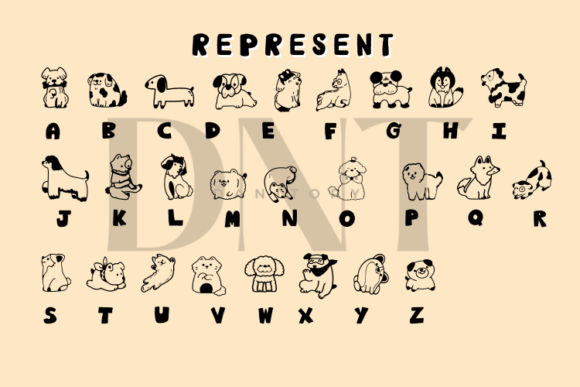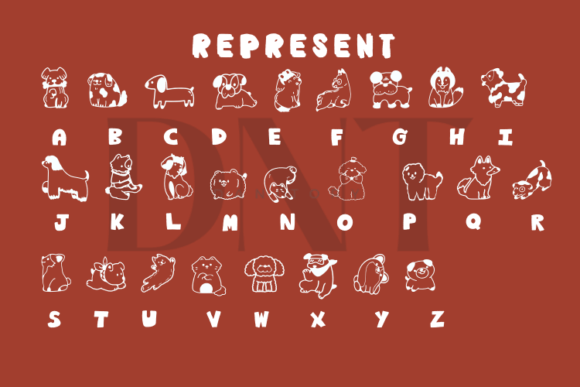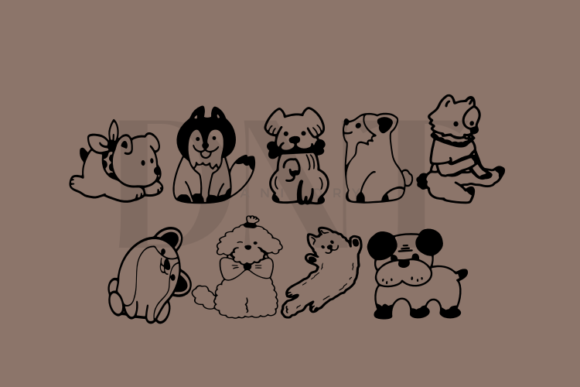
Cute Dogs Font: The Ultimate Companion for Pet Lovers and Designers
Are you a pet lover, designer, or crafter looking for a font that captures the essence of adorable dogs? Look no further than the Cute Dogs Font! This sweet and charming dingbats font is perfect for adding a touch of whimsy and fun to your designs, crafts, and projects. In this article, we’ll dive into the world of Cute Dogs Font and explore its features, uses, and benefits for designers, crafters, and pet enthusiasts alike.
What is Cute Dogs Font?
Cute Dogs Font is a unique dingbats font that features an assortment of adorable dog illustrations, each one more charming than the last. The font is designed to be versatile and can be used for a wide range of projects, from digital designs and presentations to crafts, greeting cards, and more. Whether you’re creating something for personal use or for a client, Cute Dogs Font is sure to bring a smile to anyone’s face.
Features of Cute Dogs Font
So, what makes Cute Dogs Font so special? Here are just a few of its standout features:
- Adorable illustrations: The font features a collection of cute dog illustrations that are sure to melt hearts.
- Versatile: Cute Dogs Font can be used for a wide range of projects, from digital designs to crafts and more.
- Scalable: The font is scalable, allowing you to use it for projects of all sizes, from small crafts to large-scale designs.
Uses for Cute Dogs Font
So, how can you use Cute Dogs Font in your projects? The possibilities are endless! Here are a few ideas to get you started:
- Crafts: Add a personal touch to your crafts, such as scrapbooking, card making, and DIY projects.
- Digital design: Use Cute Dogs Font in your digital designs, such as social media graphics, blog posts, and website headers.
- Presentations: Add a touch of whimsy to your presentations, making them more engaging and fun.
- Greeting cards: Create adorable greeting cards for pet lovers, birthdays, and special occasions.
- Pet-related businesses: Use Cute Dogs Font in your branding, marketing materials, and website design to appeal to pet lovers.
Benefits of Using Cute Dogs Font
So, why should you choose Cute Dogs Font for your projects? Here are just a few benefits:
- Adds a personal touch: Cute Dogs Font adds a personal and emotional touch to your projects, making them more relatable and engaging.
- Unique and creative: The font’s unique illustrations and playful style make it a great way to stand out from the crowd.
In conclusion, Cute Dogs Font is a sweet and adorable dingbats font that’s perfect for pet lovers, designers, and crafters. With its versatile illustrations, ease of use, and scalability, it’s an excellent addition to any project. Whether you’re creating crafts, digital designs, presentations, or greeting cards, Cute Dogs Font is sure to become your go-to font. So why wait? Download Cute Dogs Font today and start adding a touch of whimsy and fun to your projects!